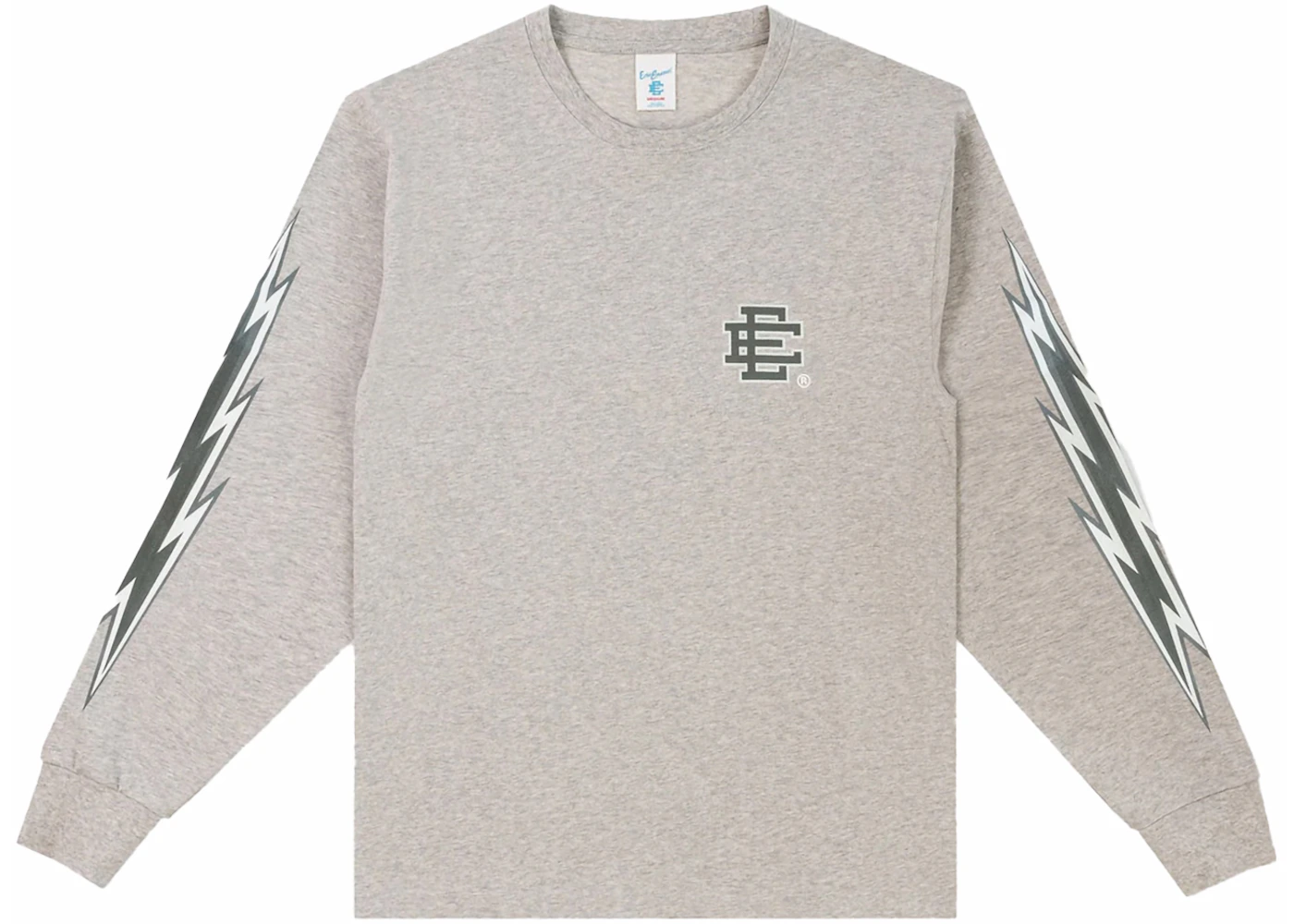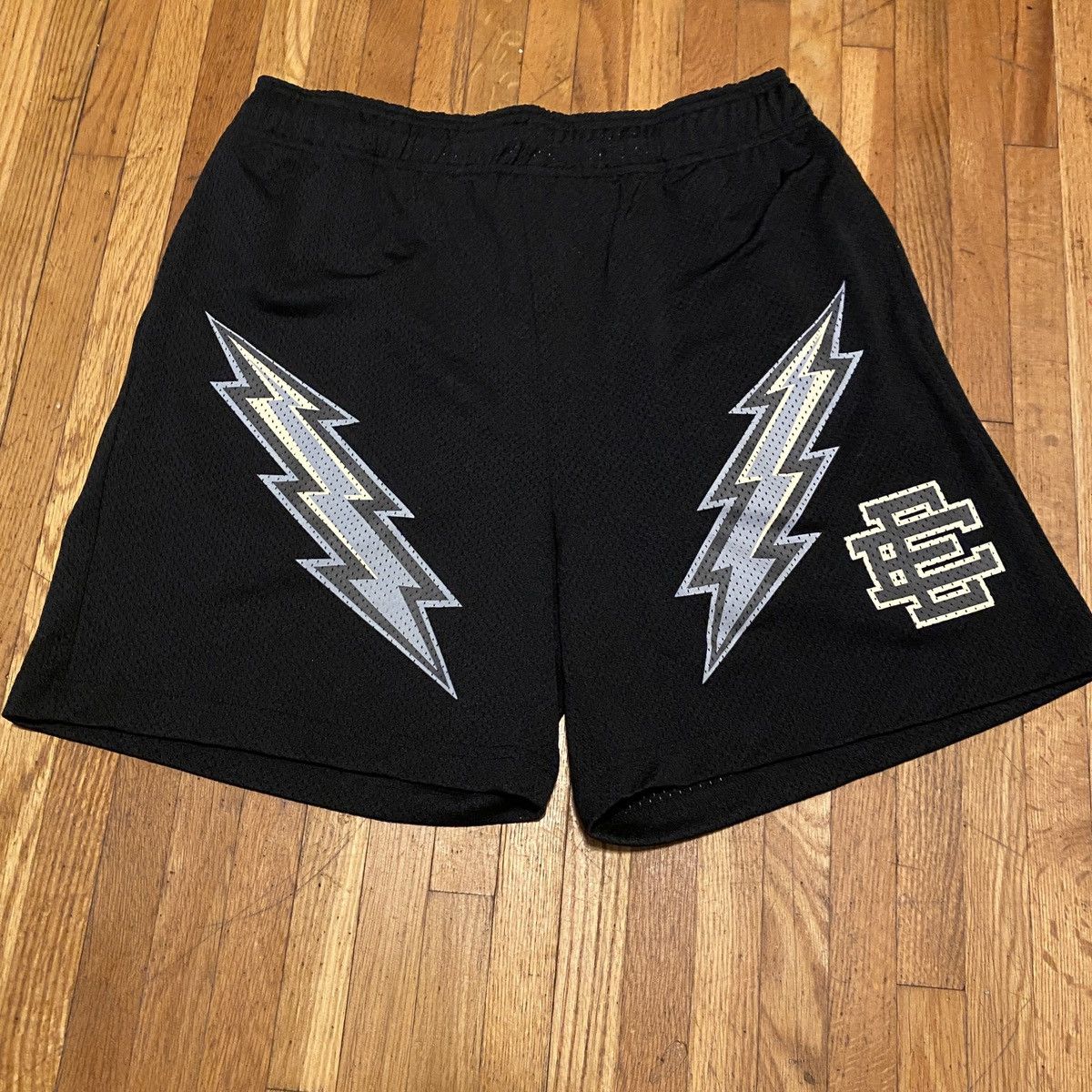
Eric Emanuel Font
Eric Emanuel Font - Find the eric emanuel style guide with brand assets such as logos, colors, fonts, and more. Browse by alphabetical listing, by style, by author or by popularity. This isn't a font, it's a monogram logotype. 140k subscribers in the identifythisfont. This kind of font is called a slab serif if that's what you mean? Archive of freely downloadable fonts.
Browse by alphabetical listing, by style, by author or by popularity. 140k subscribers in the identifythisfont. Find the eric emanuel style guide with brand assets such as logos, colors, fonts, and more. This kind of font is called a slab serif if that's what you mean? This isn't a font, it's a monogram logotype. Archive of freely downloadable fonts.
140k subscribers in the identifythisfont. This kind of font is called a slab serif if that's what you mean? This isn't a font, it's a monogram logotype. Archive of freely downloadable fonts. Browse by alphabetical listing, by style, by author or by popularity. Find the eric emanuel style guide with brand assets such as logos, colors, fonts, and more.
Find the eric emanuel style guide with brand assets such as logos, colors, fonts, and more. Browse by alphabetical listing, by style, by author or by popularity. 140k subscribers in the identifythisfont. This isn't a font, it's a monogram logotype. This kind of font is called a slab serif if that's what you mean?
Browse by alphabetical listing, by style, by author or by popularity. This kind of font is called a slab serif if that's what you mean? This isn't a font, it's a monogram logotype. 140k subscribers in the identifythisfont. Archive of freely downloadable fonts.
140k subscribers in the identifythisfont. This kind of font is called a slab serif if that's what you mean? This isn't a font, it's a monogram logotype. Browse by alphabetical listing, by style, by author or by popularity. Find the eric emanuel style guide with brand assets such as logos, colors, fonts, and more.
140k subscribers in the identifythisfont. Browse by alphabetical listing, by style, by author or by popularity. This isn't a font, it's a monogram logotype. Find the eric emanuel style guide with brand assets such as logos, colors, fonts, and more. This kind of font is called a slab serif if that's what you mean?
Find the eric emanuel style guide with brand assets such as logos, colors, fonts, and more. 140k subscribers in the identifythisfont. This kind of font is called a slab serif if that's what you mean? Archive of freely downloadable fonts. This isn't a font, it's a monogram logotype.
140k subscribers in the identifythisfont. Archive of freely downloadable fonts. This isn't a font, it's a monogram logotype. Browse by alphabetical listing, by style, by author or by popularity. Find the eric emanuel style guide with brand assets such as logos, colors, fonts, and more.
Browse by alphabetical listing, by style, by author or by popularity. Archive of freely downloadable fonts. This kind of font is called a slab serif if that's what you mean? Find the eric emanuel style guide with brand assets such as logos, colors, fonts, and more. This isn't a font, it's a monogram logotype.
Browse by alphabetical listing, by style, by author or by popularity. This kind of font is called a slab serif if that's what you mean? Archive of freely downloadable fonts. Find the eric emanuel style guide with brand assets such as logos, colors, fonts, and more. 140k subscribers in the identifythisfont.
This kind of font is called a slab serif if that's what you mean? 140k subscribers in the identifythisfont. Browse by alphabetical listing, by style, by author or by popularity. This isn't a font, it's a monogram logotype. Find the eric emanuel style guide with brand assets such as logos, colors, fonts, and more.
140k subscribers in the identifythisfont. Find the eric emanuel style guide with brand assets such as logos, colors, fonts, and more. This kind of font is called a slab serif if that's what you mean? Browse by alphabetical listing, by style, by author or by popularity. This isn't a font, it's a monogram logotype.
Find the eric emanuel style guide with brand assets such as logos, colors, fonts, and more. This kind of font is called a slab serif if that's what you mean? Archive of freely downloadable fonts. 140k subscribers in the identifythisfont.